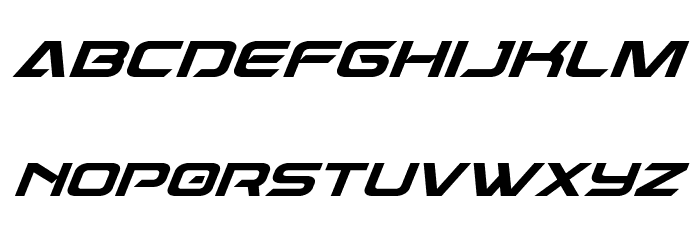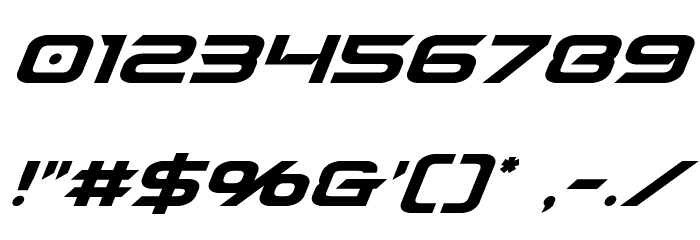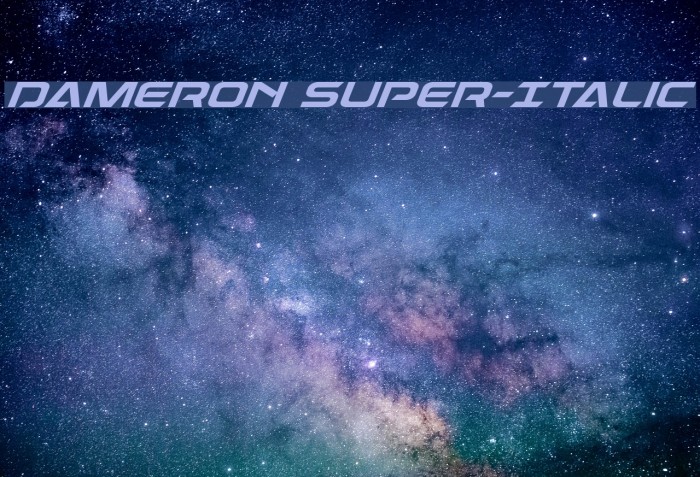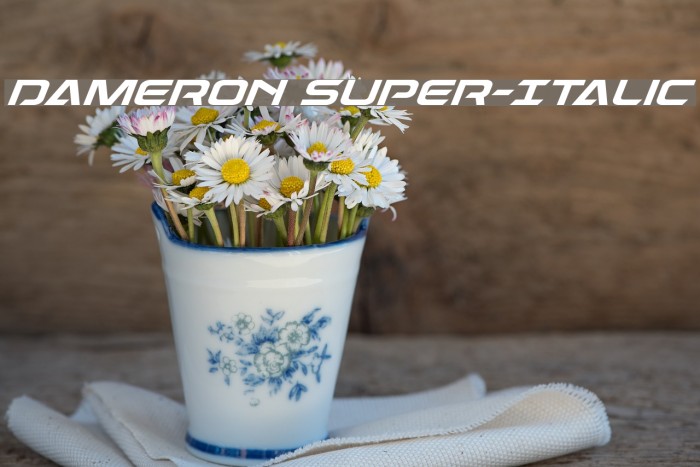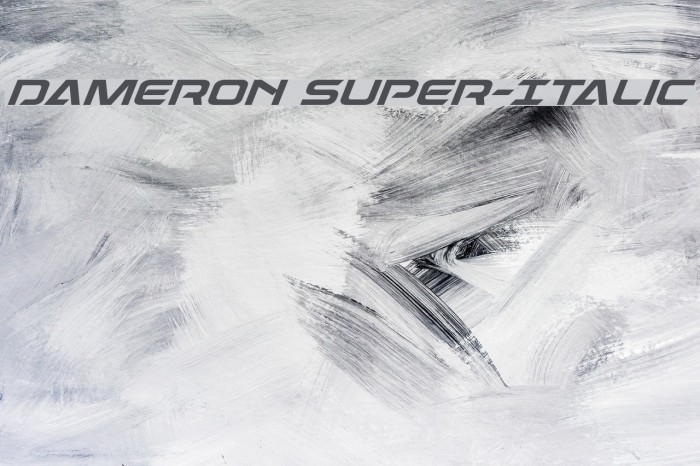
Dameron Super-Italic Font
This font features a dynamic and futuristic design with a strong italic slant, giving it a sense of motion and speed. The characters are bold and angular, with sharp edges and a geometric structure that enhances its modern appeal. The uppercase and lowercase letters maintain a consistent style, while the numbers and special characters complement the overall aesthetic. The font's design is ideal for projects that require a bold and impactful visual statement, such as technology branding or sports-related materials.
A bold, italic, and futuristic font with sharp, angular characters.
- Proposed Projects: Ideal for technology branding, sports logos, futuristic designs, and dynamic advertising.
- Use Case: Headlines, Logos, Branding